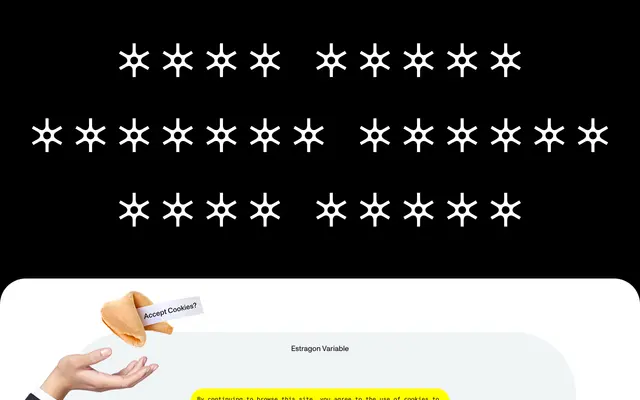
Estragon
A revival of an obscure 1890s ornamental wood-type specimen, redrawn by Dinamo in 2017 with alternate Wildstyle, Arrow and Bubble character sets that can be mixed freely.
Drawn from a single spread in Harrild & Sons' circa-1890 wood-letter specimen book, Estragon was rebuilt for contemporary use across six weights with a variable axis. Three supplementary stylistic sets — Wildstyle, Arrow and Bubble — allow individual characters to be swapped and combined, giving the family an unusually modular expressive range. Sam de Groot's description of it as 'Schwitters-meets-Wildstyle', coined for its first use in the Condo New York identity, captures the tension between its historical origins and its graphic energy.
Estragon is rooted in an 1890s ornamental wood-type specimen, redrawn with alternate stylistic sets including Wildstyle, Arrow and Bubble variants, placing it firmly in the decorative display category.